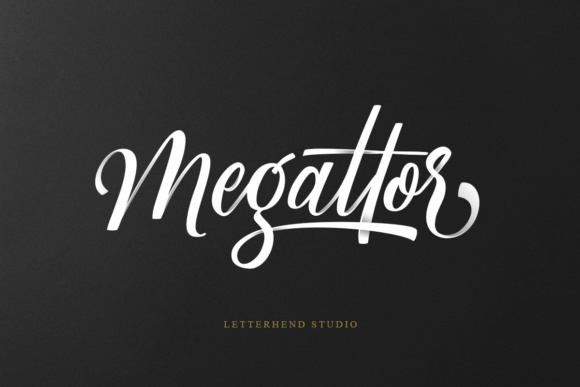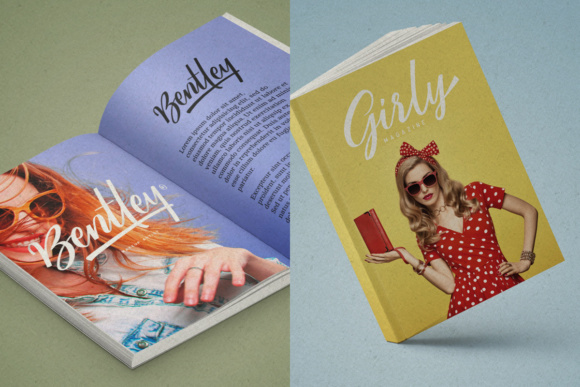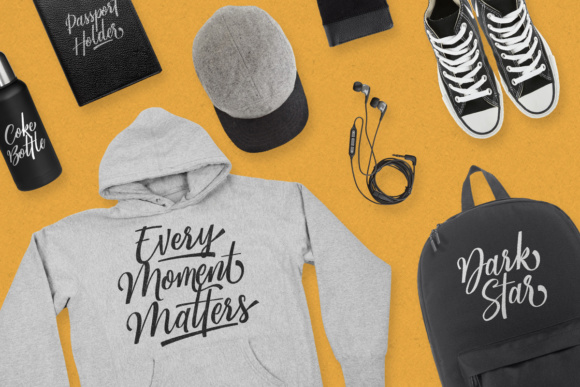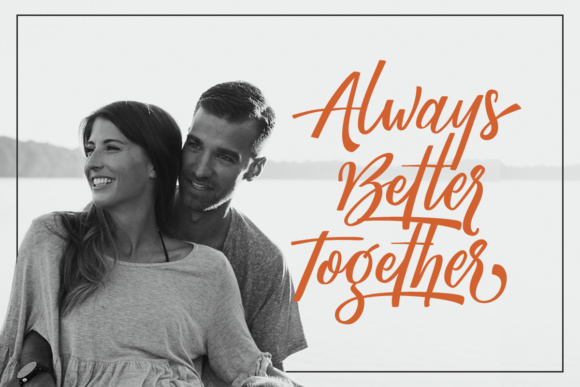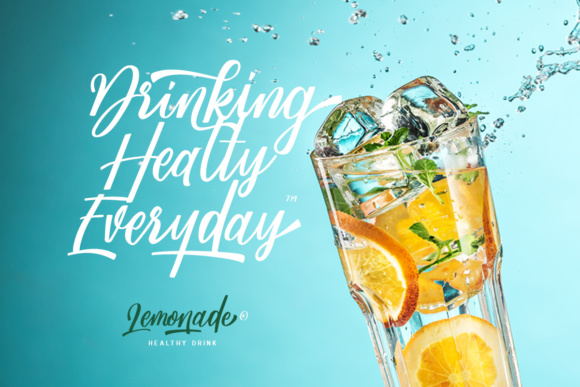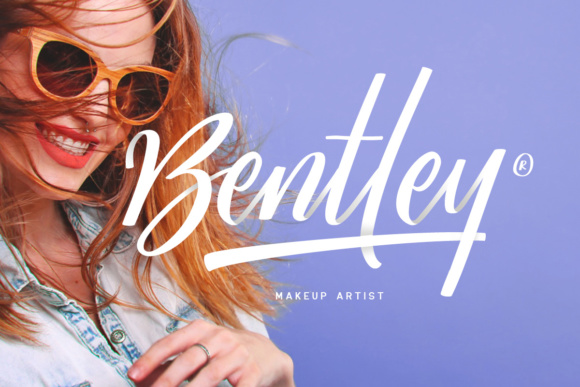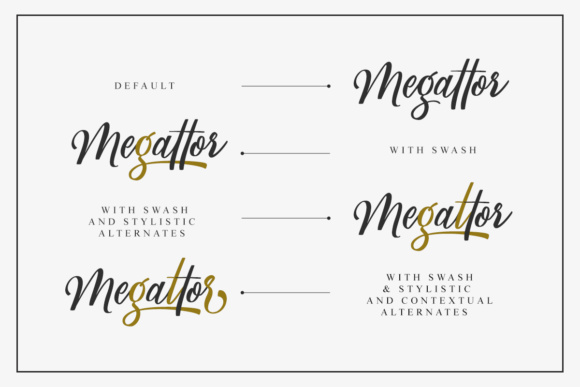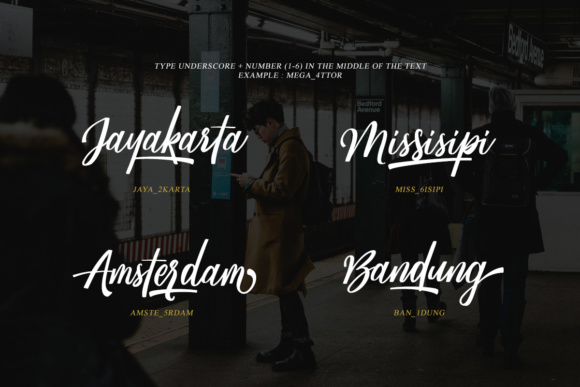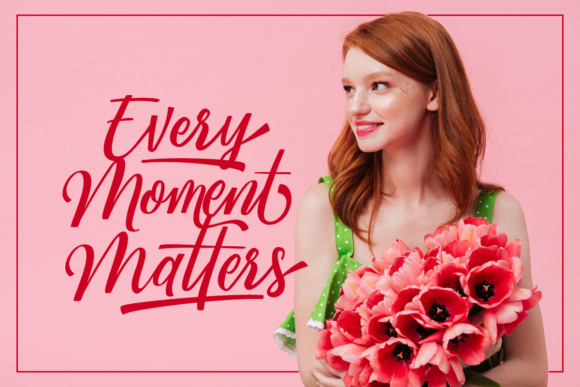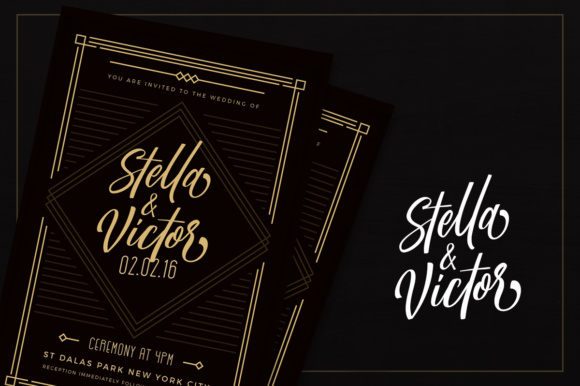
Megattor Script Font
About Megattor Script Font
Megattor is a beautifull handwritten typeface. As you can see the flow of the bold and thin lines create a perfect hand lettering just by typing on your keyboard!